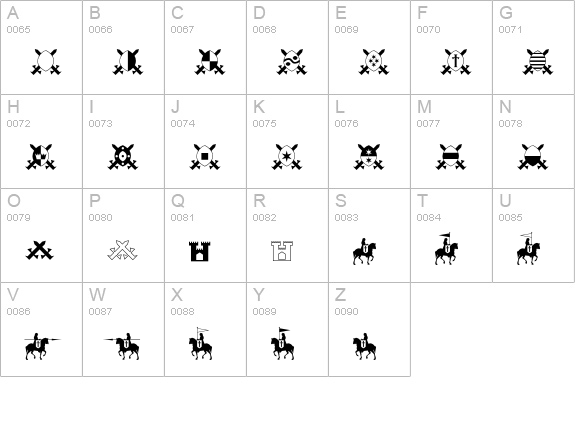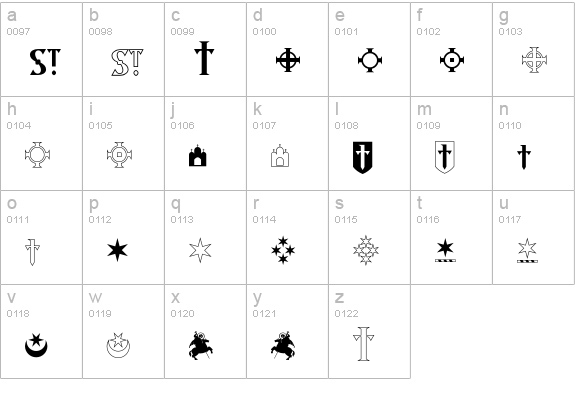
Archangel-Icon Font Details
Archangel-Icon font is a stunning and versatile typeface that exudes elegance and sophistication. Featuring a wide range of beautifully crafted icons, this font is perfect for adding a touch of style to your projects. From social media graphics to website design, Archangel-Icon font offers endless possibilities for creative expression. What sets Archangel-Icon font apart is not only its aesthetic appeal but also its accessibility. This font is available for free download at FontsMarket.com, making it easy for designers and creators to elevate their work without any cost. With its seamless integration into various design applications, Archangel-Icon font is a must-have for anyone looking to enhance their visual content effortlessly. Whether you're a seasoned designer or a budding creative, Archangel-Icon font is sure to inspire your next project with its timeless charm and modern flair. Download this exceptional font today and unlock a world of design possibilities at your fingertips.